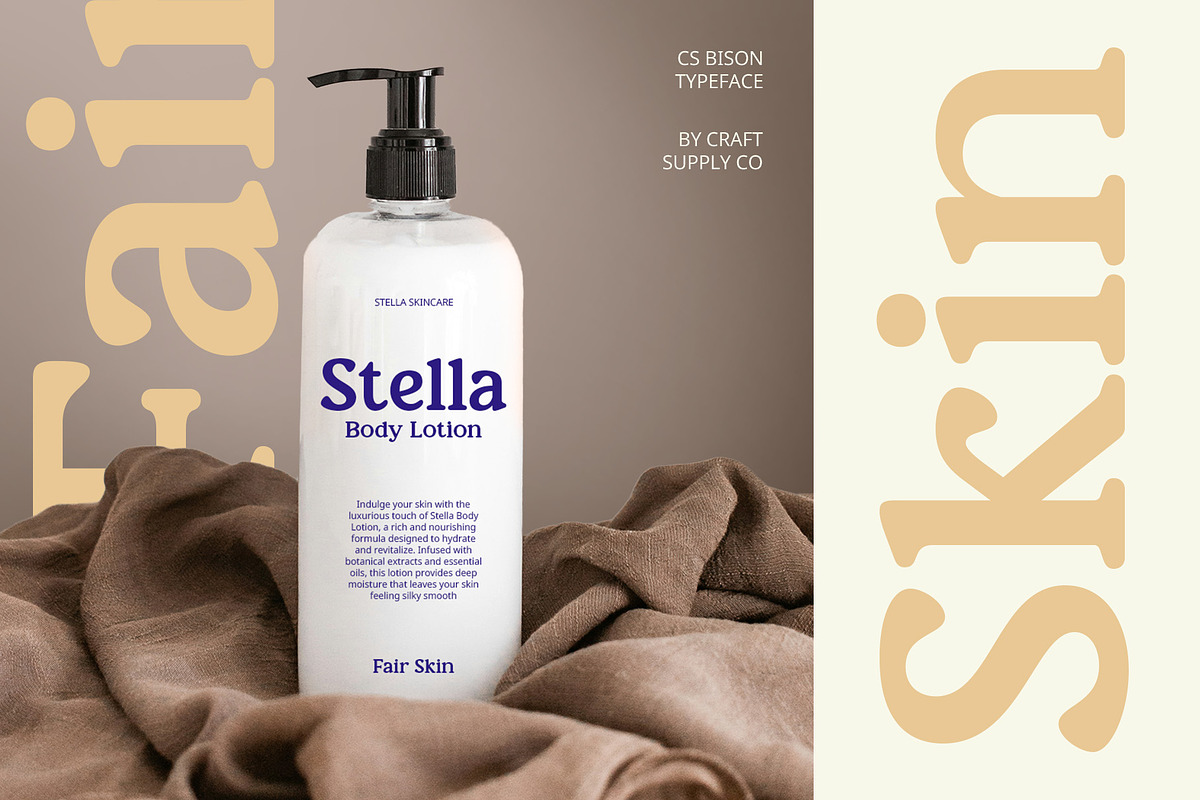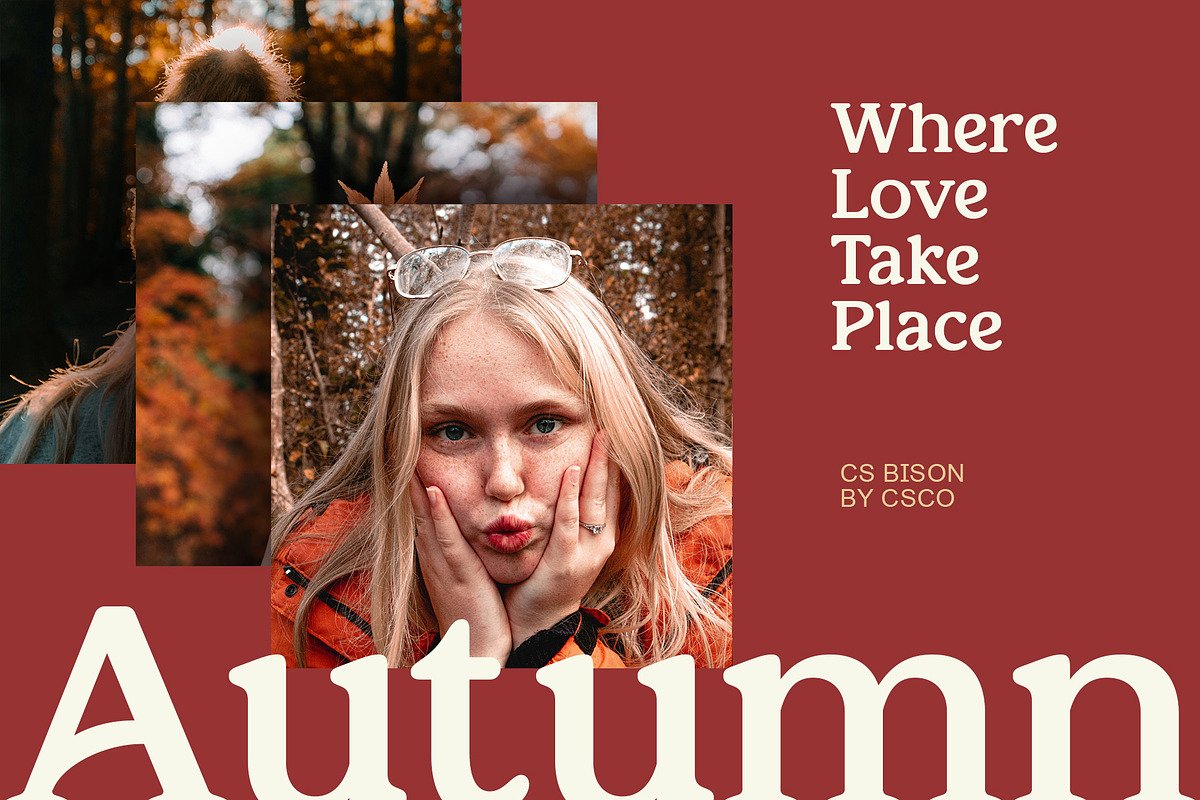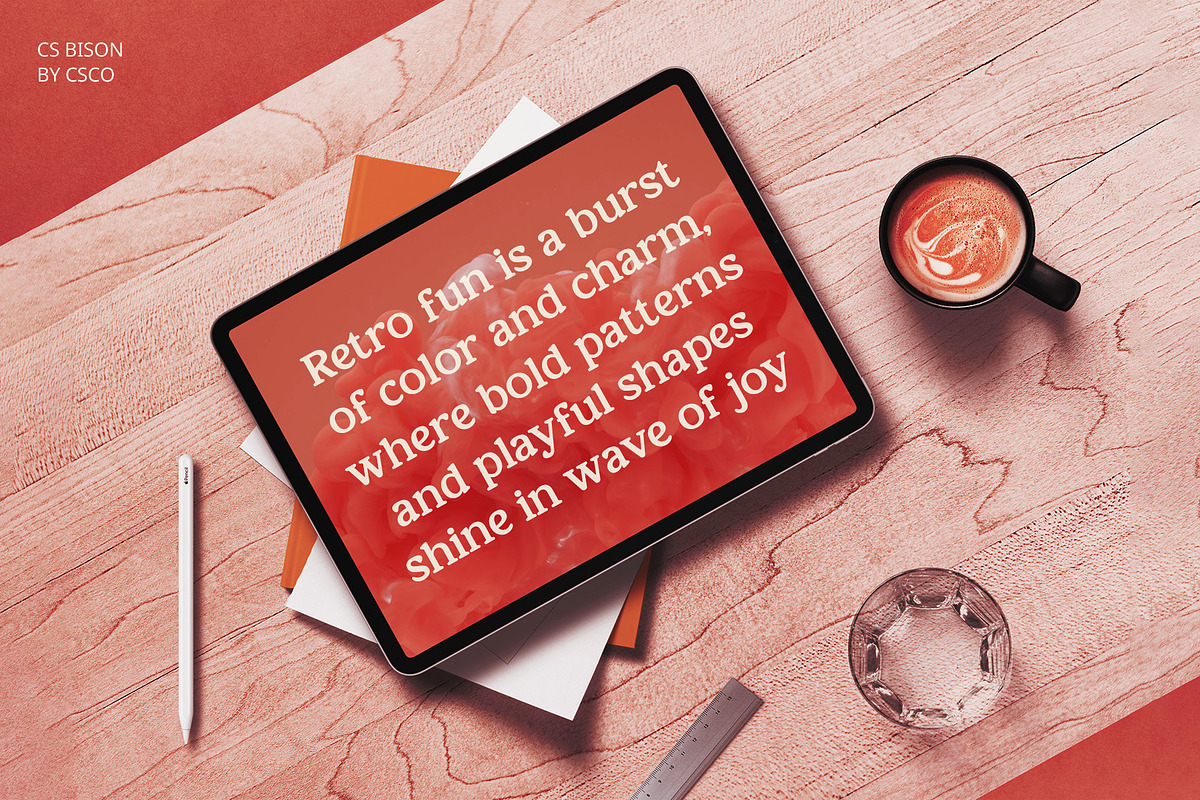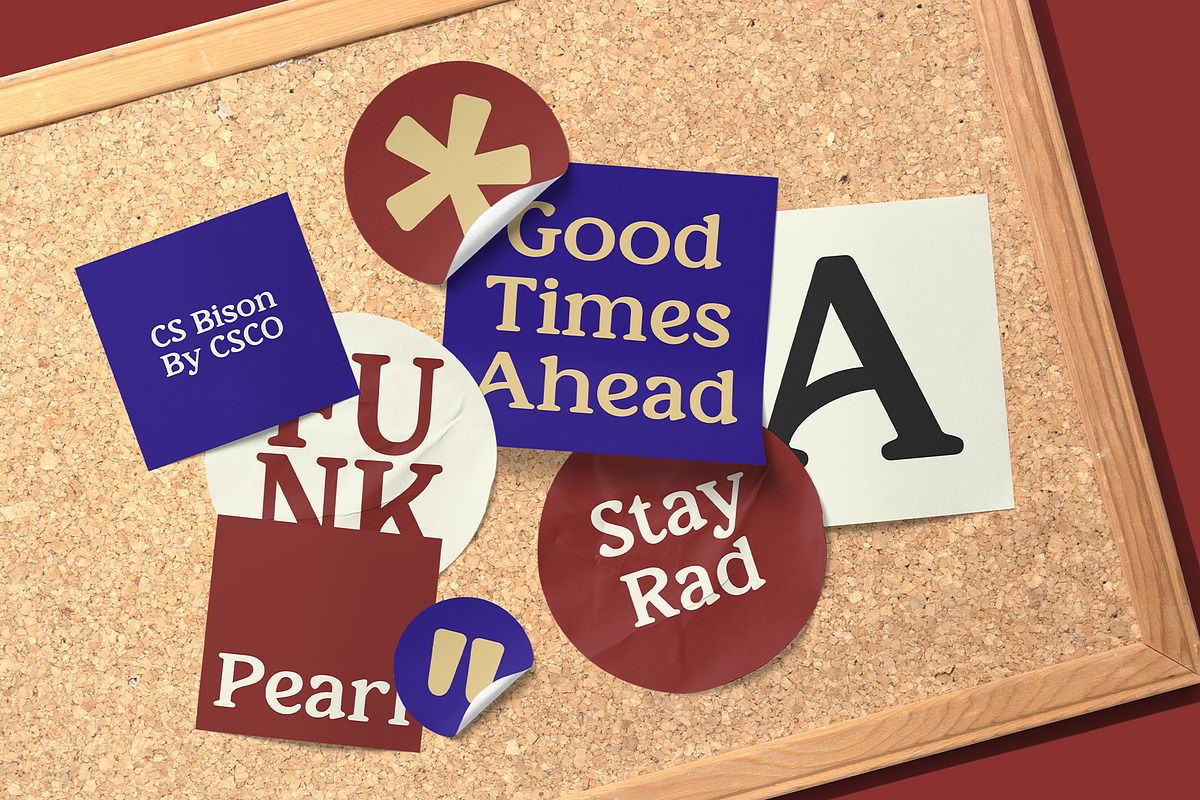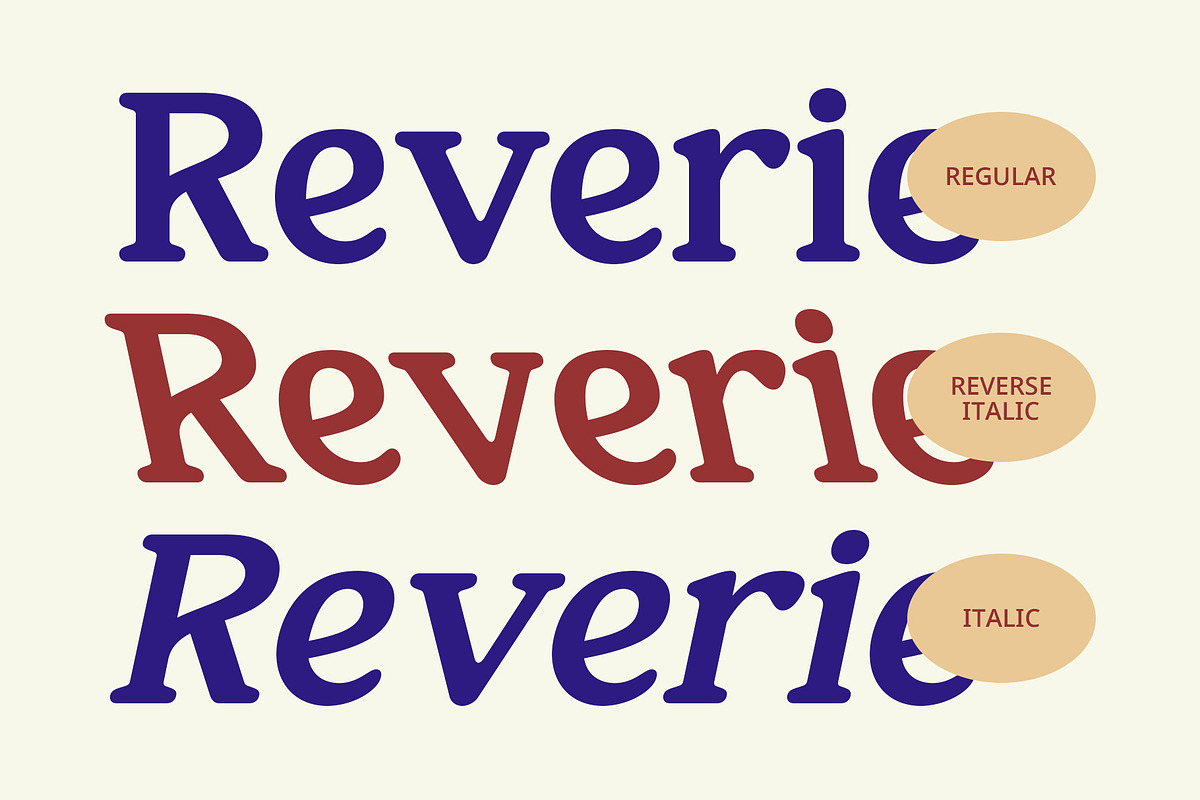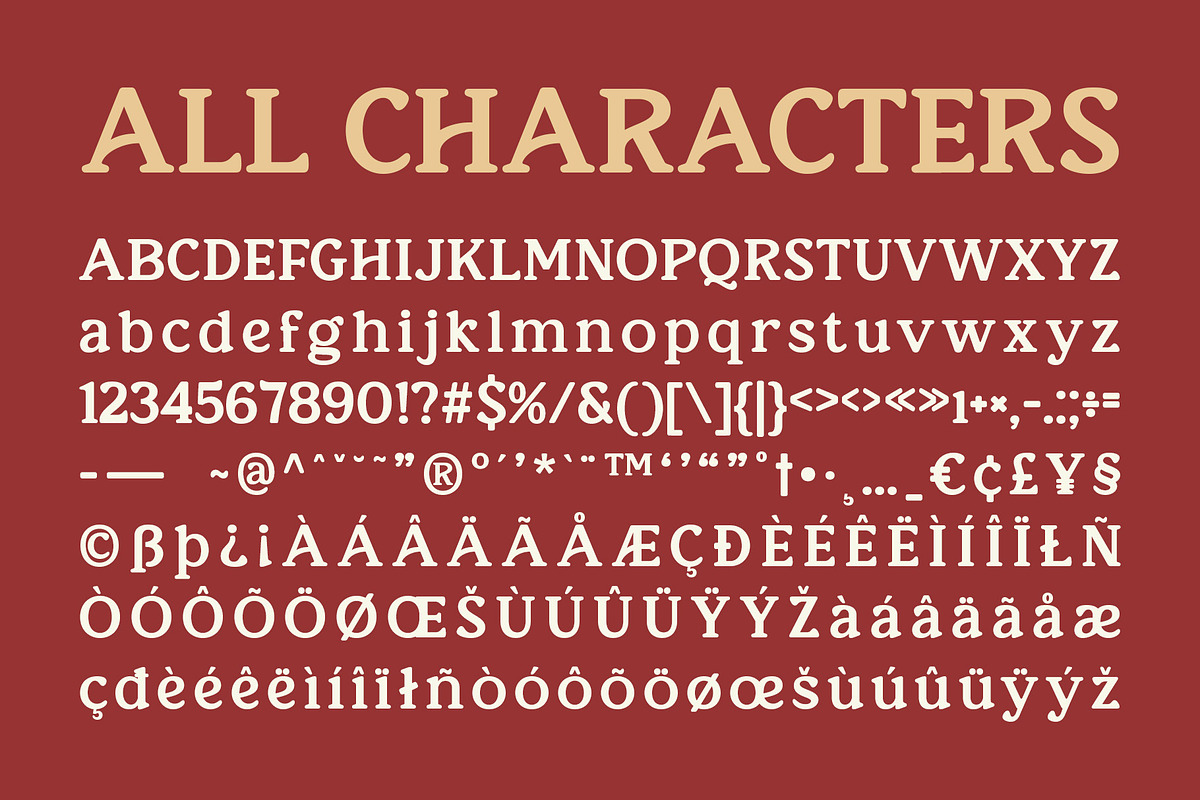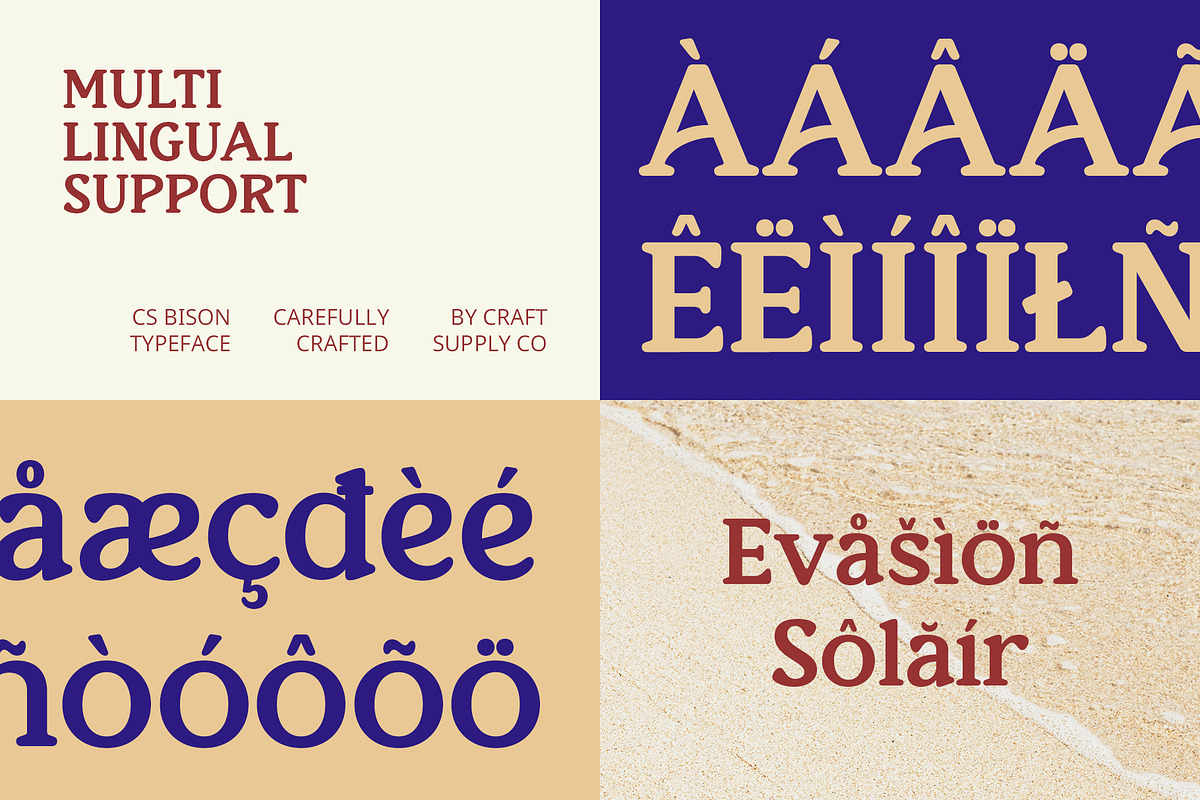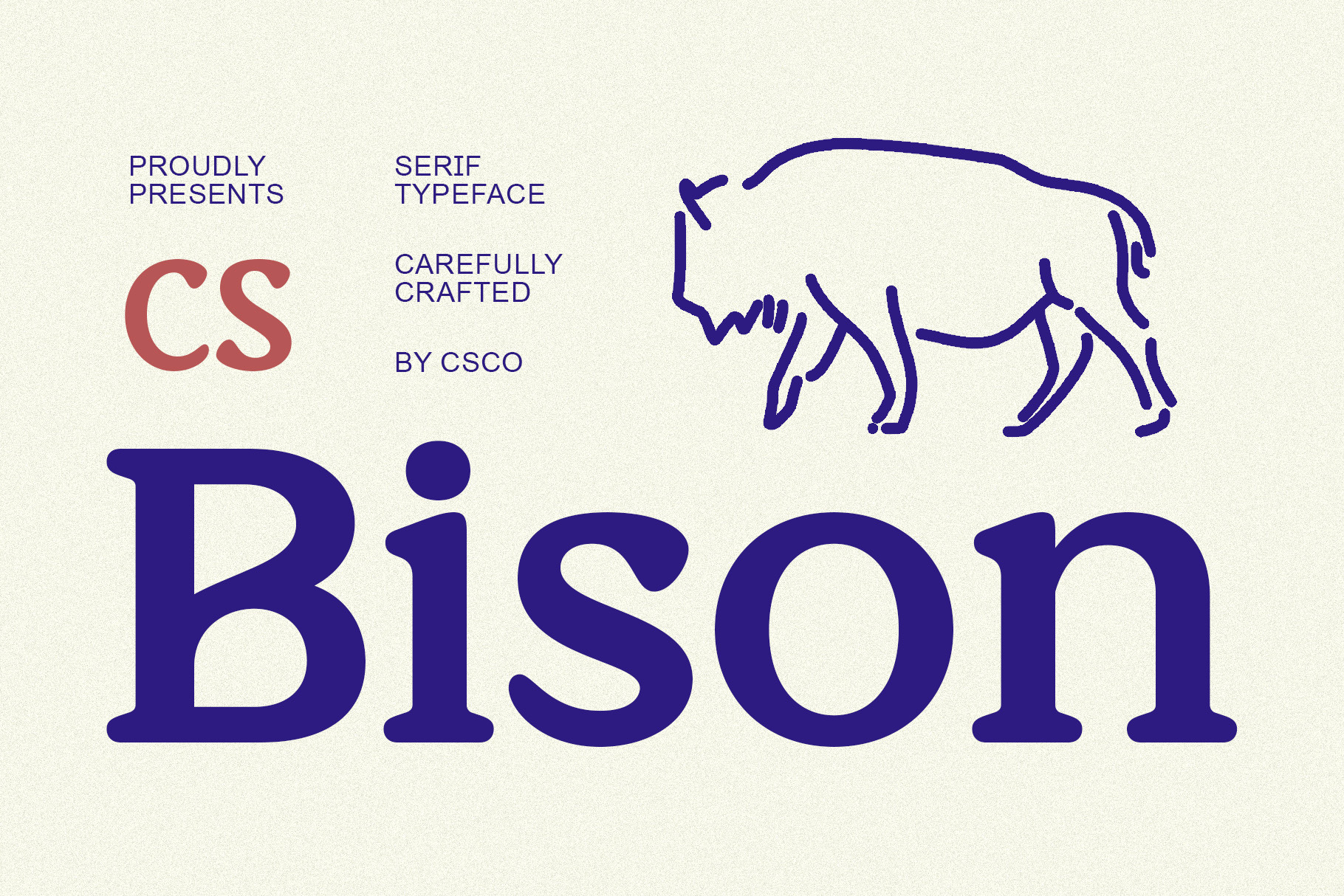
CS Bison – Retro Font
CS Bison – Playful Retro Serif Font
Bold, Rounded Letterforms with a Funky Vibe CS Bison is a retro-inspired serif font that combines thick, rounded letterforms with bold styling, exuding a playful and nostalgic energy. The rounded serifs and chunky structure offer a unique blend of warmth and strength, making it perfect for designs that need to stand out with a fun, retro aesthetic. The thick letterforms ensure high visibility, creating a strong presence in any project.
Nostalgic Yet Playful Style With its distinct throwback appeal, CS Bison channels the vibrant energy of past eras while maintaining a contemporary, approachable charm. The rounded shapes and bold serifs evoke a sense of nostalgia for vintage design, while the playful nature of the font adds a touch of whimsy and lightheartedness. It’s a perfect balance of classic retro flair and modern, approachable appeal.
Perfect for Branding, Posters, and Creative Projects This font is perfect for designs that require a cheerful, bold statement. Whether you’re creating dynamic branding, energetic posters, quirky advertisements, or standout packaging, CS Bison’s playful retro charm will make your project unforgettable.
A Retro Font with Charm and Character CS Bison’s thick, rounded forms are ideal for projects that need to convey a bold, yet inviting look. This font’s retro flair is softened by its playful rounded edges, giving it an approachable and charismatic personality.
- CS Bison Regular
- CS Bison Italic
- CS Bison Reverse Italic